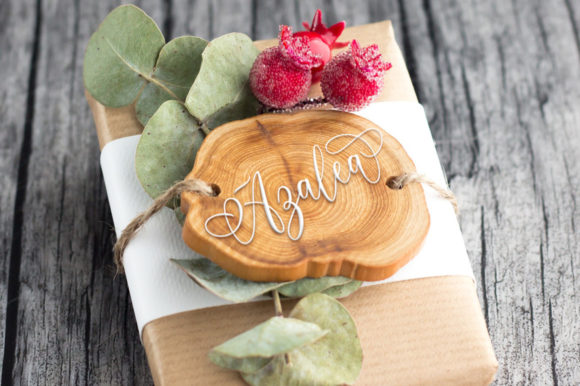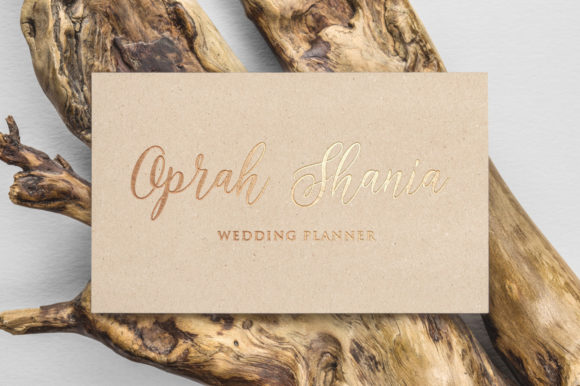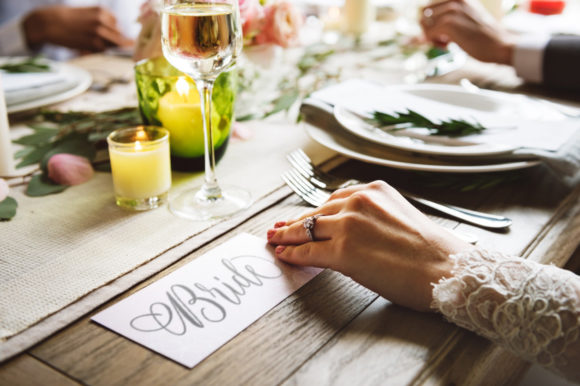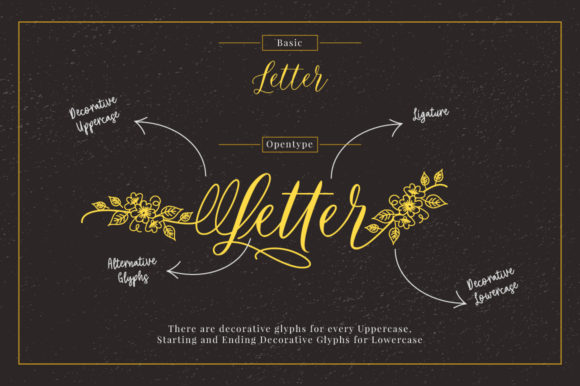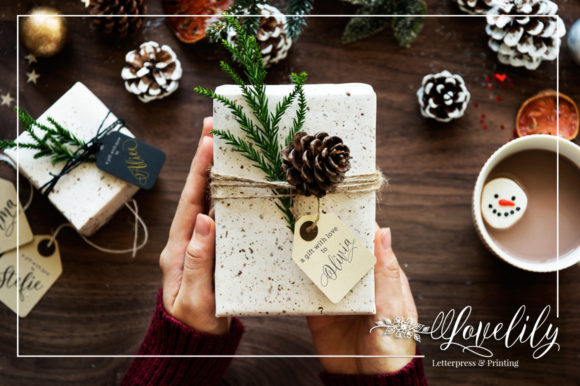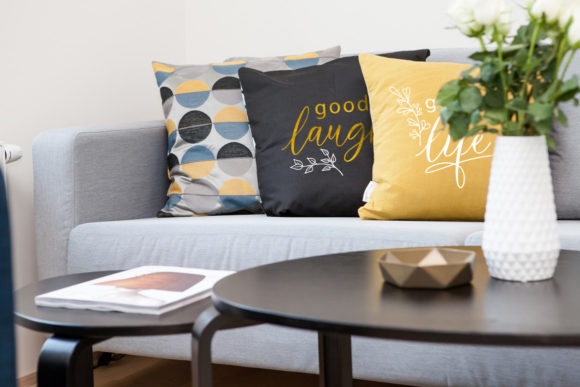
Introduction to Holidays Beauty Font
As a designer, there’s nothing quite like the thrill of bringing a creative project to life. You spend hours pouring over every detail, from the color palette to the typography, until finally, it all comes together in a stunning visual feast. But sometimes, that one special font can make all the difference between a good design and a great one. That’s where the Holidays Beauty Font comes in – a calligraphic script font that’s specifically designed to add a touch of elegance and sophistication to your holiday designs.
With its flowing, cursive lines and decorative glyphs, the Holidays Beauty Font is the perfect addition to any designer’s toolkit. Whether you’re working on a book cover, film poster, or apparel design, this versatile font is sure to elevate your project to the next level. And with its high-quality, PUA-encoded design, you can rest assured that your font will look its best on any transparent background – a must-have feature for any modern design resource.
- High-quality design resource ideal for creative projects, including holiday-themed designs.
- Features a transparent background, allowing for seamless integration with any design.
- Includes a range of unique, intricate designs perfect for adding a touch of elegance to your project.
- Perfect for use in digital and print projects, including invitations, greeting cards, and social media graphics.
Honest Review: Holidays Beauty Font
Here are some of the things that work well for me:
- ✨ The font is very versatile and can be used in a variety of different contexts, from holiday-themed designs to more general beauty and wellness projects.
- ✨ The transparent background makes it easy to layer the font over different images and backgrounds, which is perfect for creative projects.
That being said, there are a few limitations to the font:
- ⚠️ The font is only available in a few different weights and styles, which can make it a bit limiting if you’re looking for a lot of customization options.
- ⚠️ The font may not be suitable for large blocks of text, as it can start to look a bit cluttered and overwhelming.
Overall, I’m really impressed with the Holidays Beauty Font. It’s a great addition to any design project and is definitely worth checking out. Just be aware of its limitations and use it in a way that makes the most sense for your project.
Common Use Cases for Holidays Beauty Font
The Holidays Beauty Font is perfect for creating high-quality designs for holidays, weddings, and other special occasions. It can be used for invitations, greeting cards, and other print materials.